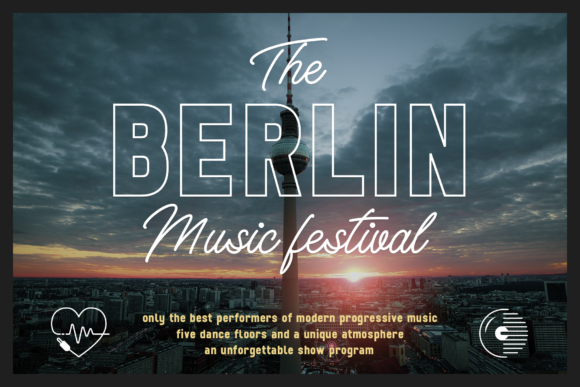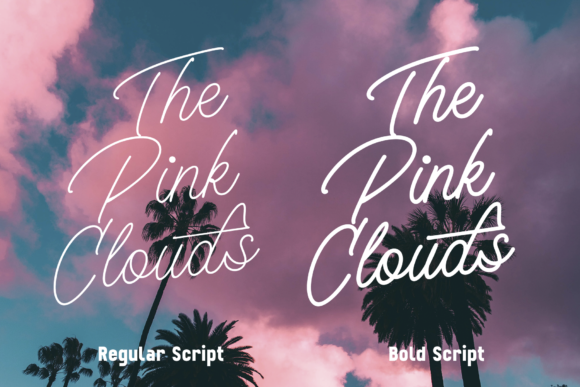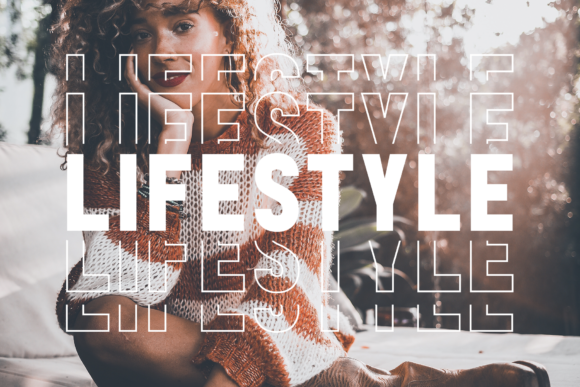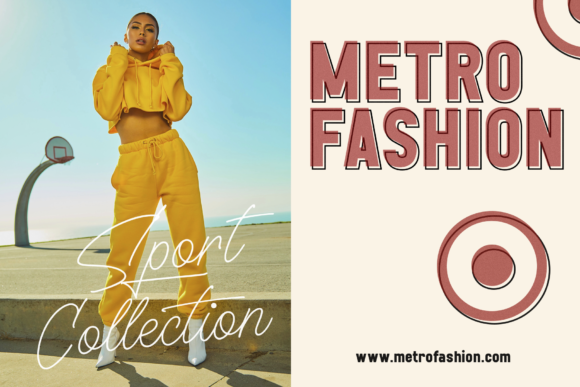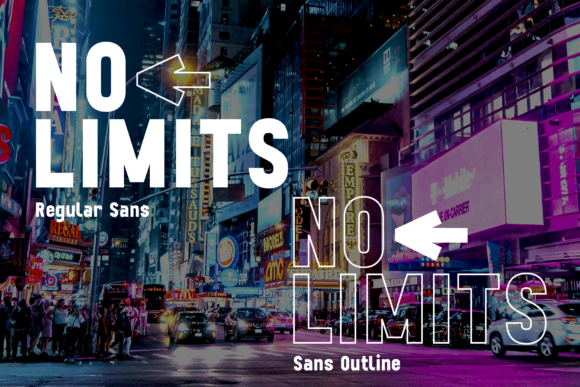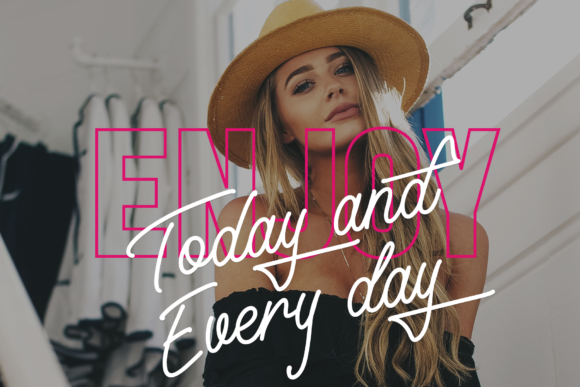
Casual Style Font: Elevate Your Designs with a Lovely Duo
Are you on the hunt for a font that can add a touch of elegance and playfulness to your designs? Look no further than the Casual Style Font, a stunning duo font that combines a display font with a script font. This beautiful font is perfect for designers and crafters who want to create visually appealing projects that stand out from the crowd.
What Makes Casual Style Font So Special?
Casual Style Font is a PUA (Private Use Area) encoded font, which means that you can easily access all of the glyphs and swashes without any hassle. This font is designed to be incredibly versatile, making it perfect for a wide range of design projects, from wedding invitations and party decorations to social media graphics and branding materials.
The Perfect Combination: Display and Script Fonts
The Casual Style Font duo consists of a beautiful display font and a elegant script font. The display font is perfect for headlines, titles, and other large text elements, while the script font is ideal for body text, quotes, and other smaller text elements. The combination of these two fonts creates a stunning visual effect that is sure to capture the attention of your audience.
Key Features of Casual Style Font
- PUA Encoded: Easy access to all glyphs and swashes
- Versatile: Perfect for a wide range of design projects
- Duo Font: Includes both a display font and a script font
- Elegant and Playful: Adds a touch of sophistication and whimsy to your designs
How to Use Casual Style Font in Your Designs
Casual Style Font is incredibly easy to use, even if you’re new to font pairing or design. Here are a few tips to get you started:
- Pair the display font with the script font: Create a stunning visual effect by pairing the two fonts together.
- Use the display font for headlines: The display font is perfect for grabbing attention and adding emphasis to your headlines.
- Use the script font for body text: The script font is ideal for body text, quotes, and other smaller text elements.
- Experiment with swashes and glyphs: With PUA encoding, you can easily access all of the glyphs and swashes to add a personal touch to your designs.
Design Ideas to Get You Started
Here are a few design ideas to get you started with Casual Style Font:
- Wedding Invitations: Create beautiful wedding invitations that set the tone for a special day.
- Party Decorations: Use Casual Style Font to create stunning party decorations, including banners, garlands, and more.
- Social Media Graphics: Add a touch of elegance and playfulness to your social media graphics with Casual Style Font.
- Branding Materials: Use Casual Style Font to create professional branding materials, including business cards, brochures, and more.
Casual Style Font is a beautiful duo font that is perfect for designers and crafters who want to create visually appealing projects. With its PUA encoding, versatile style, and elegant and playful aesthetic, this font is sure to elevate your designs to the next level. Whether you’re creating wedding invitations, party decorations, social media graphics, or branding materials, Casual Style Font is the perfect choice.